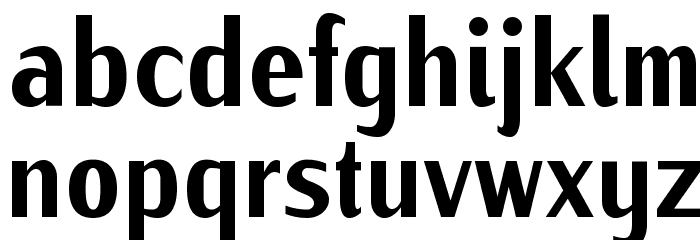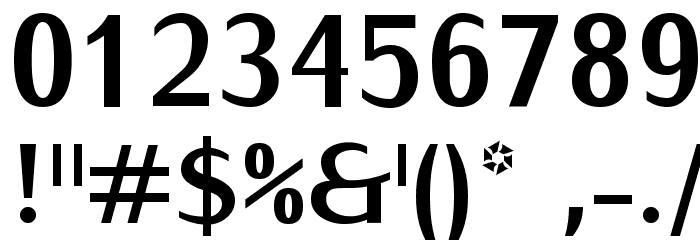
IwonaCondHeavy-Regular Font
This font exhibits a strong and bold presence with its heavy weight and condensed form. The characters are designed with a modern aesthetic, featuring clean lines and a uniform stroke width that provides a sense of stability and confidence. The uppercase letters are tall and commanding, while the lowercase letters maintain a consistent height that complements the overall structure. The numerals are clear and easily distinguishable, making them suitable for various applications. Special characters are well-integrated, ensuring versatility in design projects. The font's condensed nature allows for efficient use of space without sacrificing readability.
A bold, condensed font with a modern and confident style.
- Proposed Projects: Ideal for headlines, posters, branding, and editorial design where a strong visual impact is desired.